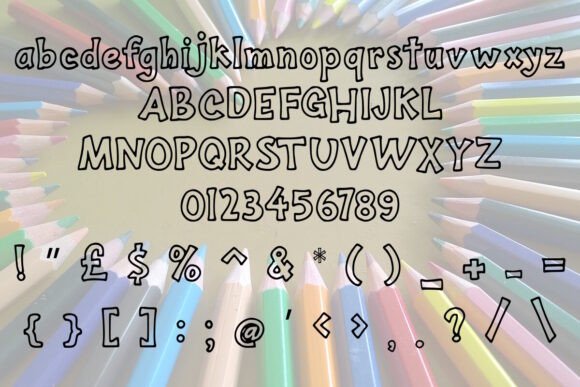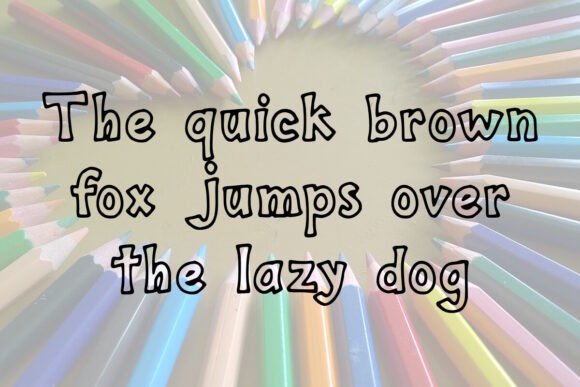
Add a Splash of Fun and Creativity to Your Designs with Colour Me Pretty Font
Are you looking for a font that can add a playful and creative touch to your designs? Look no further than Colour Me Pretty Font! This bold, outlined font is perfect for designers, crafters, and anyone who loves to get creative. With its customisable design, you can leave it as is or fill it with vibrant colours to bring your projects to life.
What is Colour Me Pretty Font?
Colour Me Pretty Font is a unique and fun font that is perfect for kids’ crafts, posters, and any project that needs a little extra charm. The font is available in TTF (TrueType Font) format, making it compatible with most design software. This means you can easily install it on your computer and start using it in your favourite design programs.
Perfect for Colouring Projects and Activities
Colour Me Pretty Font is ideal for colouring projects and activities, especially for kids. The outlined design makes it easy for little ones to colour and create their own masterpieces. You can use it to create colouring pages, activity sheets, and even colouring books. The font’s playful design will encourage kids to get creative and have fun with colours.
Kids’ Birthday Invitations and Party Decor
Make your kids’ birthday invitations and party decor stand out with Colour Me Pretty Font. You can use it to create custom invitations, banners, and signs that will set the tone for a fun and festive party. The font’s bold and playful design will make your party decor pop and create a memorable experience for your kids and their friends.
Fun Posters and Signs
Colour Me Pretty Font is also perfect for creating fun posters and signs. Whether you need to create a poster for a school project, a sign for a craft fair, or a notice for a community event, this font will add a playful touch to your design. You can use it to create eye-catching headlines, titles, and text that will grab attention and convey your message.
Craft Labels and DIY Projects
If you’re a crafter or DIY enthusiast, you’ll love Colour Me Pretty Font. You can use it to create custom labels for your craft projects, such as jars, containers, and packaging. The font’s outlined design makes it easy to add colours and create a unique and personalized look. You can also use it to create signs and instructions for your DIY projects.
Personalised Gift Designs
Colour Me Pretty Font is perfect for creating personalized gift designs. You can use it to create custom gift tags, cards, and wrapping paper that will make your gifts stand out. The font’s playful design will add a touch of whimsy and fun to your gifts, making them extra special for the recipient.
Key Features of Colour Me Pretty Font
- Bold and outlined design: Perfect for adding a playful and creative touch to your designs.
- Customisable: Leave it as is or fill it with vibrant colours to bring your projects to life.
- Perfect for kids’ crafts and activities: Ideal for colouring projects, activity sheets, and kids’ party decor.
Get Creative with Colour Me Pretty Font
Don’t settle for boring and plain fonts. Add a splash of fun and creativity to your designs with Colour Me Pretty Font. Whether you’re a designer, crafter, or DIY enthusiast, this font is perfect for anyone who loves to get creative. So why wait? Download Colour Me Pretty Font today and start creating unique and personalized designs that will stand out from the crowd!